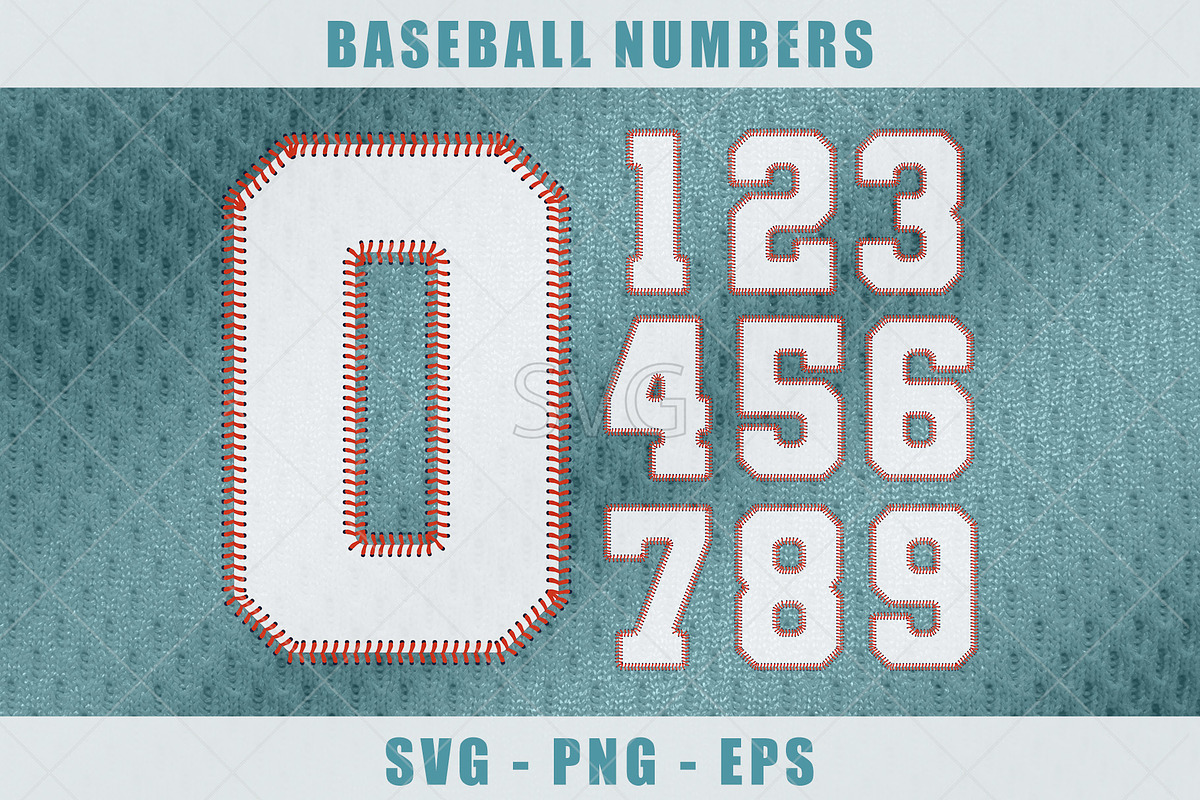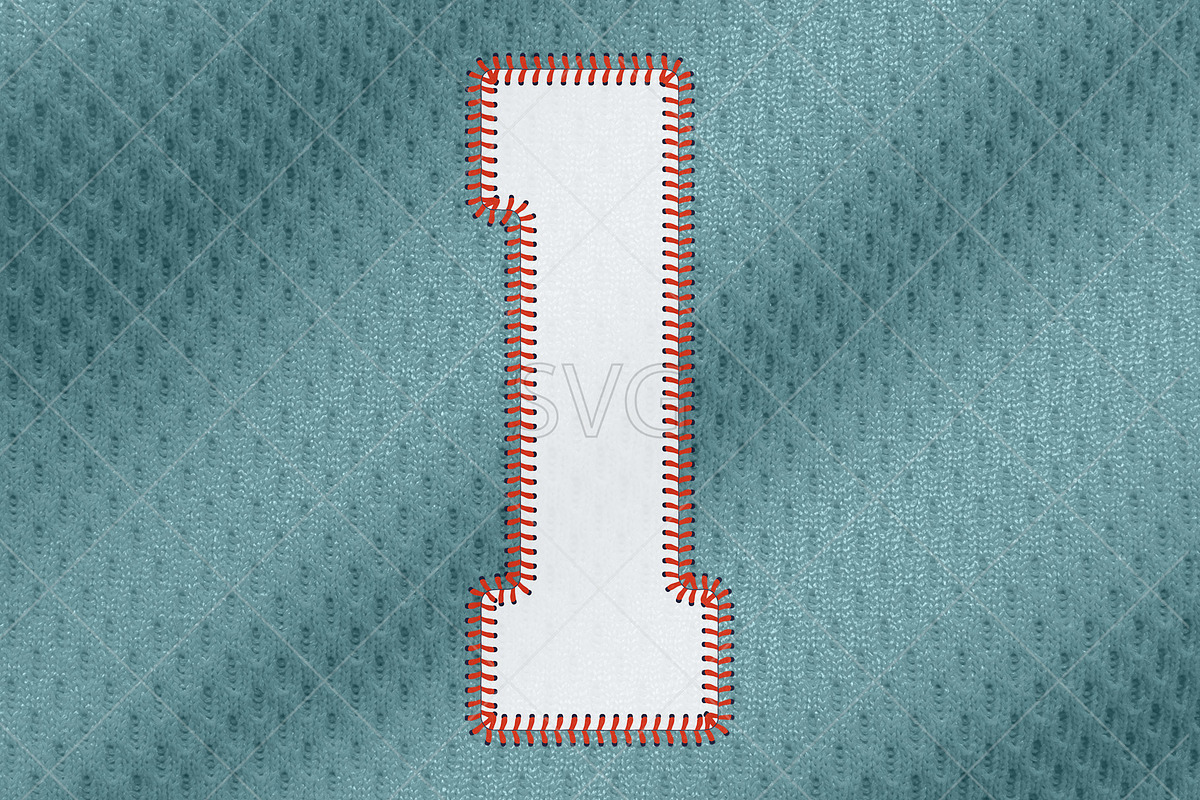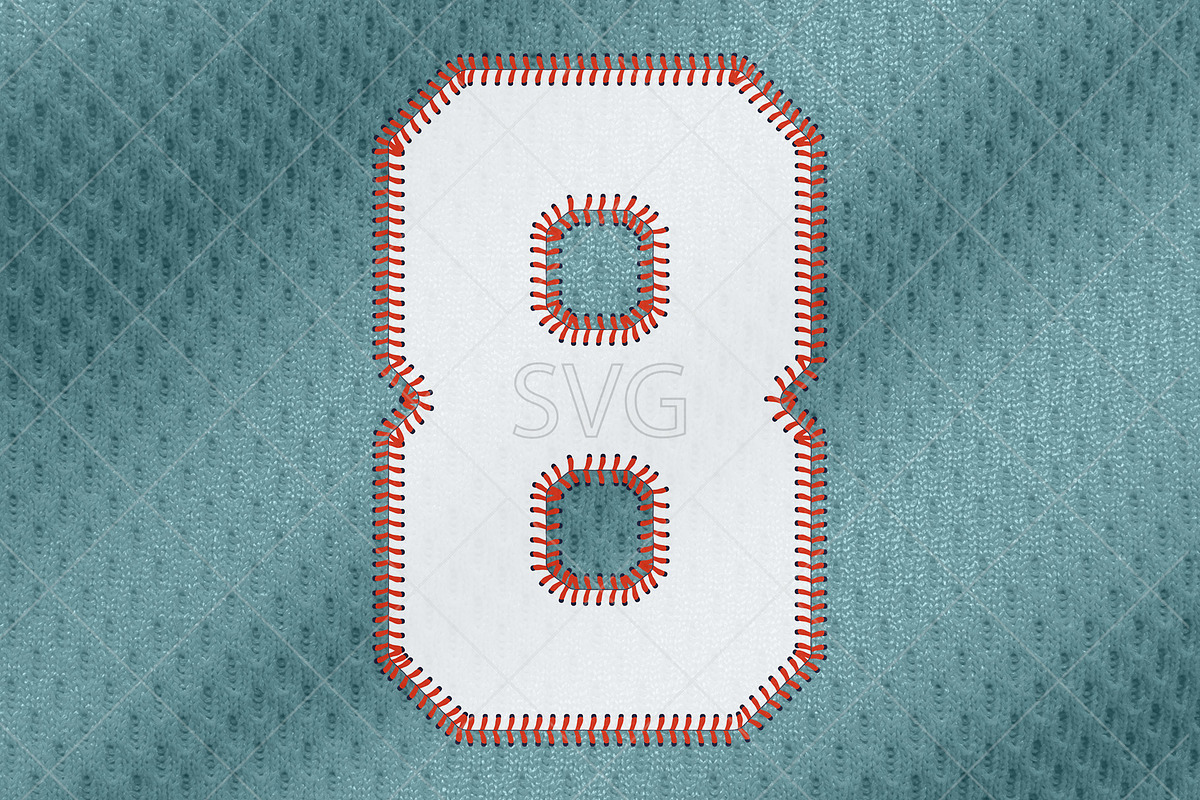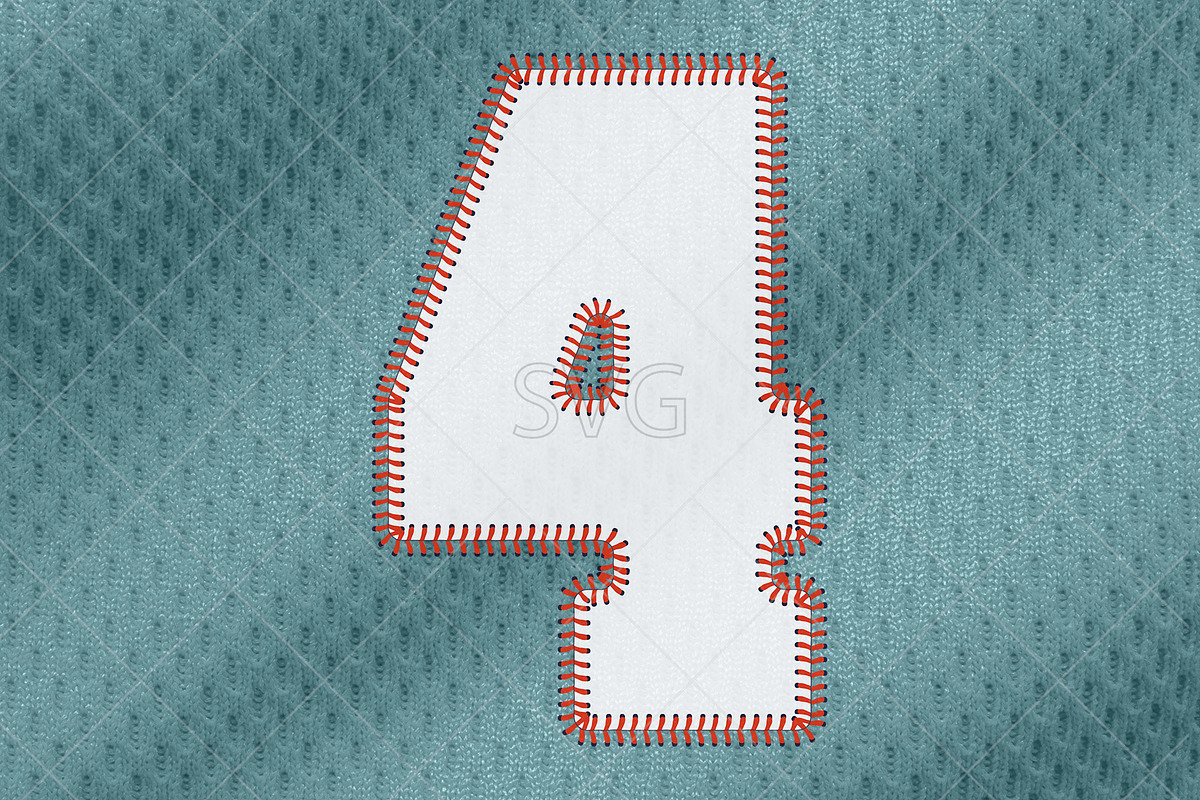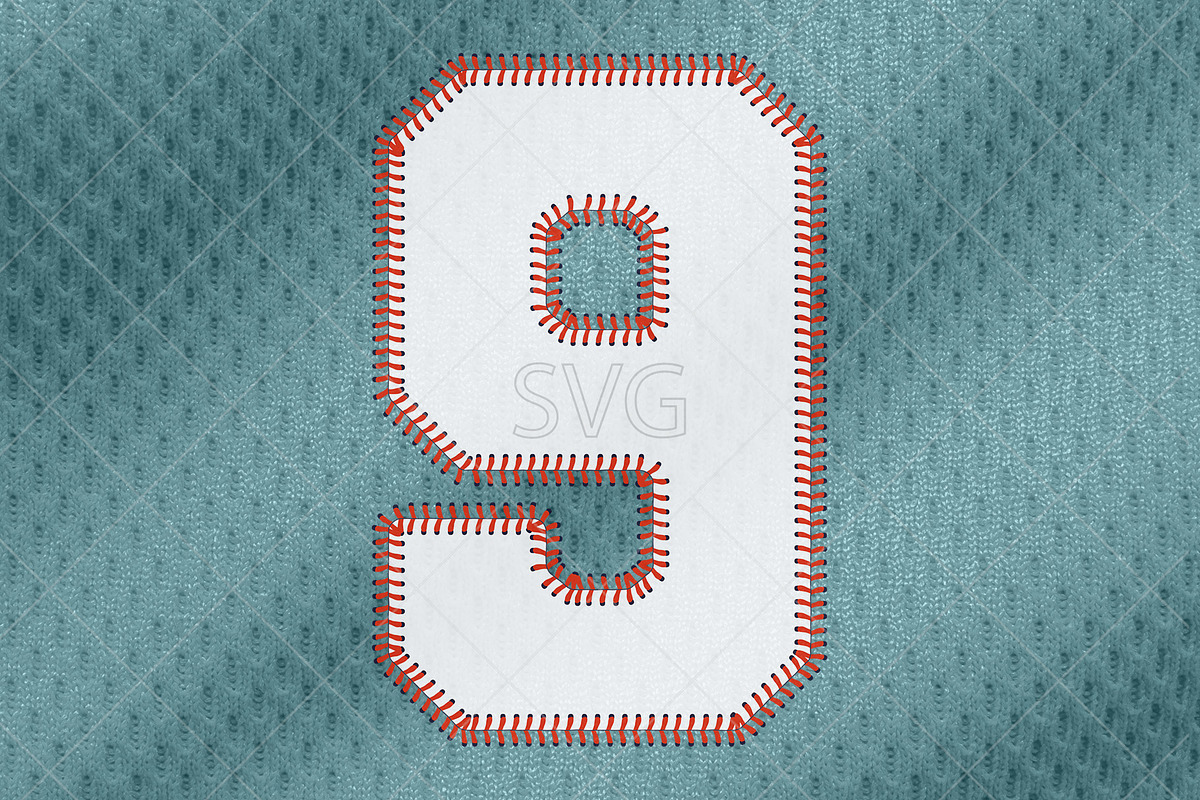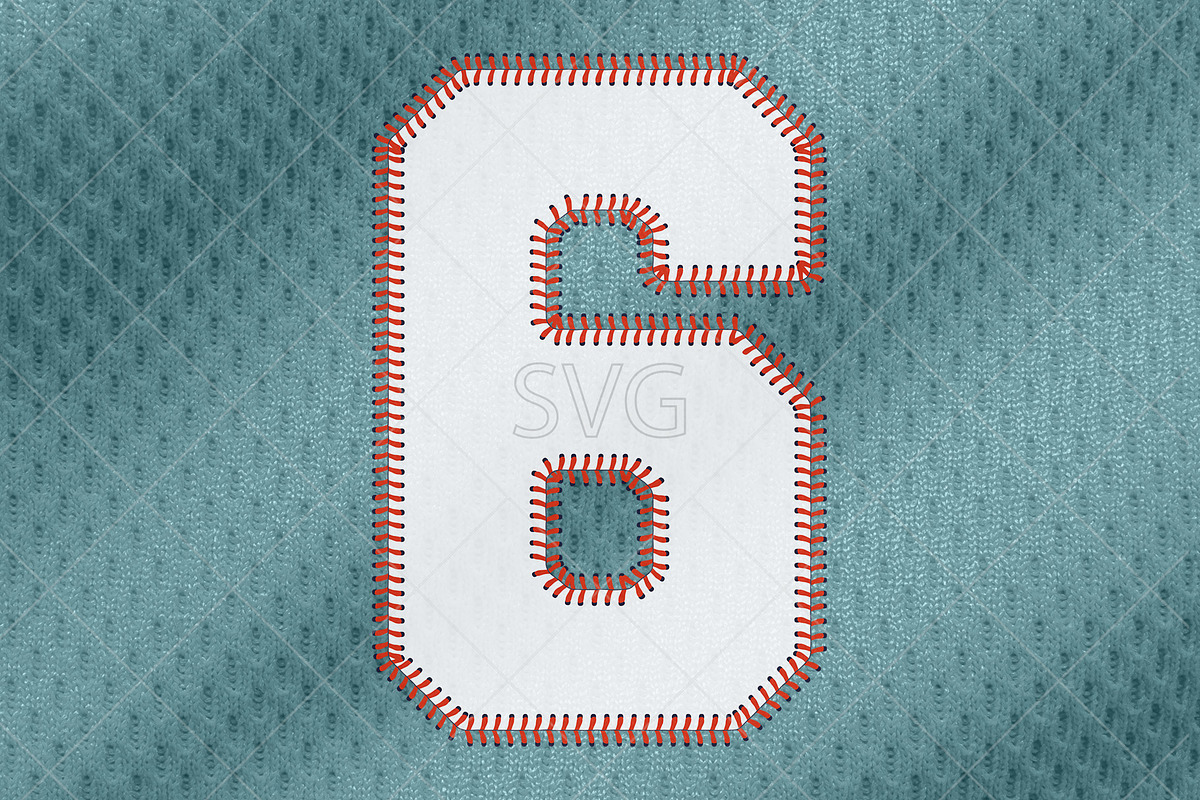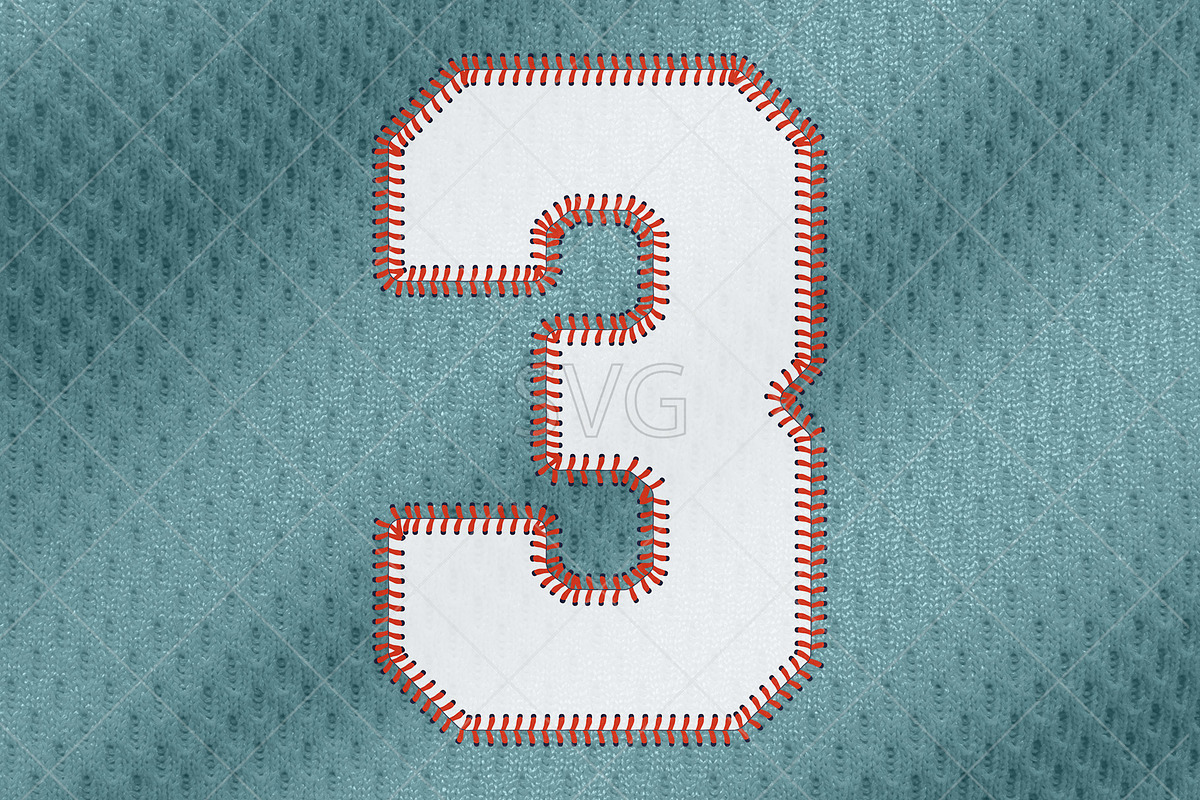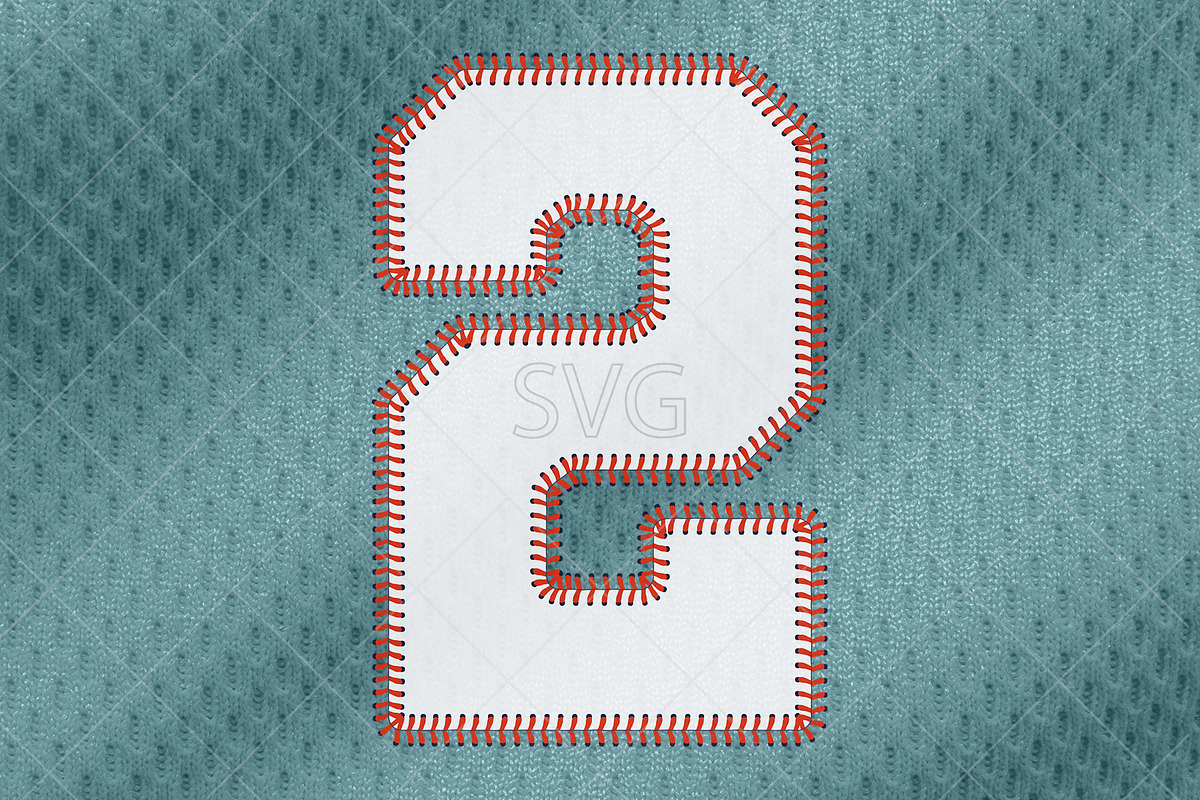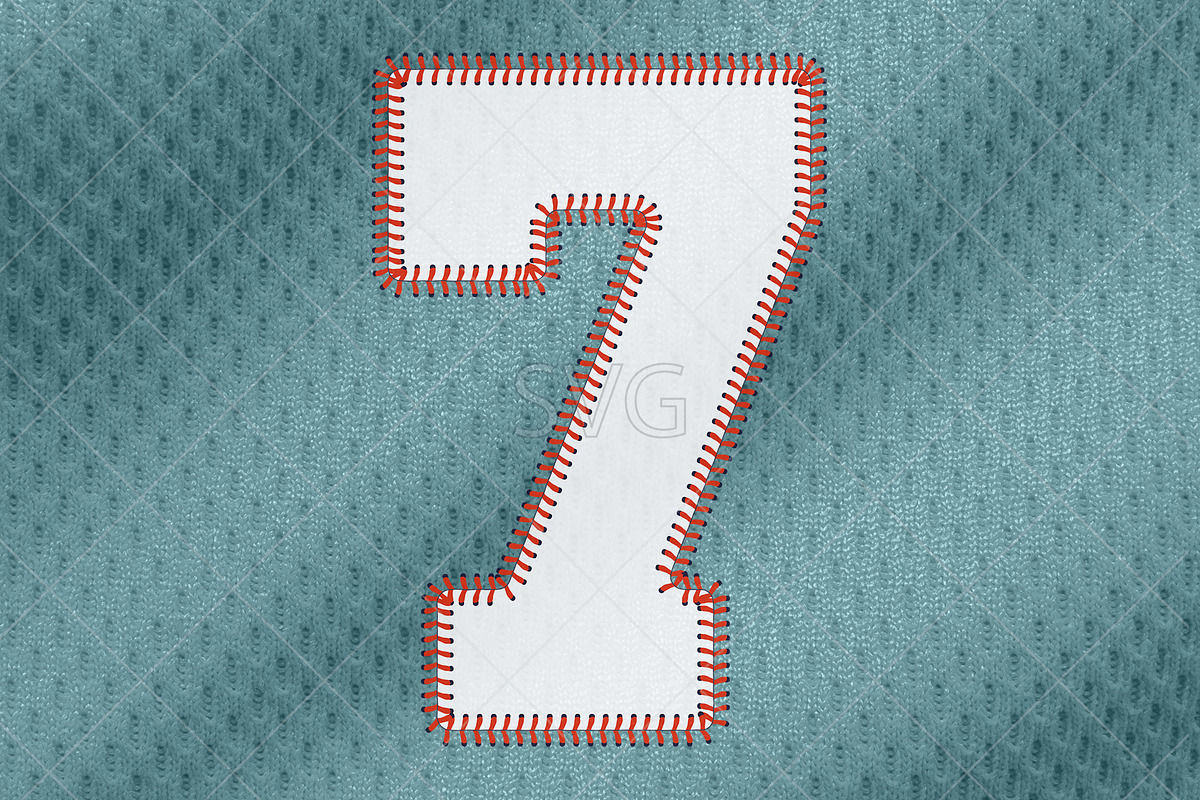
Create bold, sporty designs with this Baseball Number Font SVG, featuring numbers outlined with classic softball/baseball stitching detail. Perfect for customizing jerseys, team shirts, sports decor, and more.
- Team apparel & uniforms
- DIY sports crafts, decals & home décor